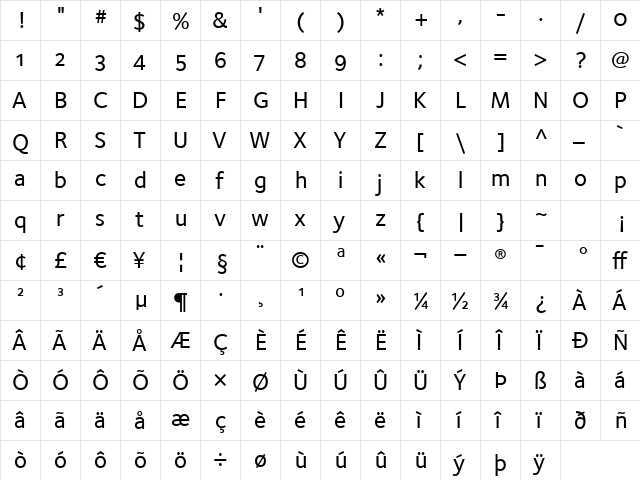
FoundrySterling-MediumOSF Regular
| Designer | The Foundry |
Design Context for FoundrySterling-MediumOSF Typeface
FoundrySterling-MediumOSF takes a measured approach to typography — its balanced proportions and neutral character make it a reliable workhorse for both digital and print work.